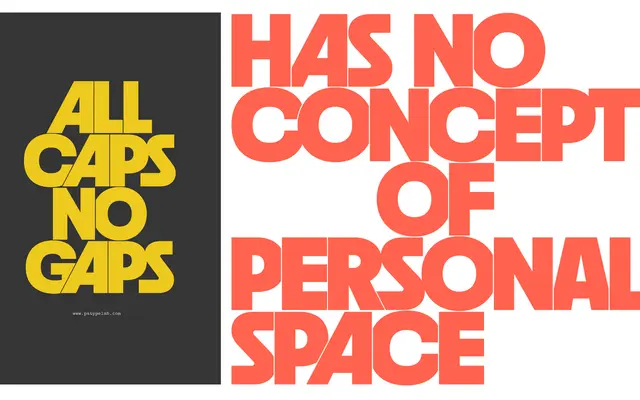
An all-caps display face that uses ligatures, contextual alternates and positional substitutions to pack letters together without them touching.
Tightle is built around an OpenType system that automates tight headline setting: each letter has multiple positional forms depending on whether it opens, closes or sits within a word, and discretionary ligatures manage the gaps so forms nestle close without overlapping. A companion subfamily, Tightle Subhead, relaxes the spacing and adds lowercase characters across four weights for supporting text. The result is a family designed specifically for headline hierarchies where extreme compression is the point.
All-caps display typeface with extreme tight spacing achieved through OpenType automation; classified as display due to its headline-only orientation and unconventional approach to letter fitting.